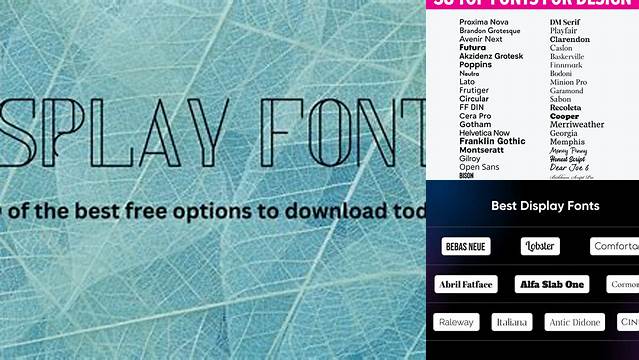
Free Display Fonts: Top Picks & Reddit's Best!
Hey there, font enthusiasts! Are you on the hunt for some awesome free display fonts to spice up your design projects? Well, you've come to the right place! In this article, we're diving deep into the world of free display fonts, exploring the best options recommended by the Reddit community and beyond. Get ready to discover some hidden gems and elevate your typography game! Let’s get started, shall we?
What are Display Fonts?
Before we jump into the specifics, let's clarify what we mean by "display fonts." Display fonts are those stylish, eye-catching typefaces designed primarily for headlines, titles, logos, and other large-format applications. Unlike body text fonts that prioritize readability, display fonts are all about making a statement. They come in a wide range of styles, from bold and geometric to elegant and script-like. When choosing free display fonts, consider the overall tone and message of your project to ensure a cohesive and impactful design. Remember, great fonts can really make or break your design, so choose wisely, guys!
Why Use Free Display Fonts?
The big question: why bother with free display fonts when there are so many premium options available? Well, the answer is simple: budget! Not everyone can afford to shell out big bucks for expensive fonts, especially when starting a new project or running a small business. Luckily, there are tons of high-quality free display fonts out there that can help you achieve a professional look without breaking the bank. Plus, using free display fonts allows you to experiment with different styles and find the perfect fit for your project without feeling guilty about the cost. Just make sure to check the license terms before using any free font commercially to avoid potential legal issues.
Where to Find Free Display Fonts on Reddit
Reddit is a goldmine for finding all sorts of things, including free display fonts. Subreddits like r/typography, r/design_critiques, and r/graphic_design are great places to ask for recommendations and discover hidden gems. Users often share their favorite free display fonts and provide links to download them. You can also search for specific font styles or keywords to narrow down your search. Don't be afraid to ask for feedback on your font choices – the Reddit community is usually very helpful and willing to share their expertise. Remember to always upvote and thank the users who share valuable resources! Reddit’s a great place to find cool stuff, especially free display fonts that others have found useful too.
Top Reddit Recommendations for Free Display Fonts
Alright, let's get to the good stuff: the top free display fonts recommended by the Reddit community. Here are a few popular choices that consistently receive praise for their versatility and aesthetic appeal:
- Oswald: A classic sans-serif font that's perfect for headlines and posters.
- Bebas Neue: A tall and narrow sans-serif that's ideal for modern designs.
- Raleway: An elegant sans-serif with a wide range of weights.
- Montserrat: A geometric sans-serif that's clean and contemporary.
- Roboto: A versatile sans-serif that works well for both headlines and body text.
These are just a few examples, of course. There are countless other free display fonts out there waiting to be discovered. Keep exploring and experimenting to find the perfect fonts for your projects!
- Behance: Adobe’s Behance platform often has designers who release free display fonts.
- Creative Market: While known for premium fonts, they occasionally offer free display fonts as part of their weekly free goods.
How to Choose the Right Free Display Font
Choosing the right free display fonts can feel overwhelming, but it doesn't have to be. Here are a few tips to help you narrow down your options:
- Consider your brand: Your font choices should align with your brand's personality and values.
- Think about your target audience: Choose fonts that will appeal to your target audience.
- Pay attention to readability: Even though display fonts are meant to be eye-catching, they should still be readable.
- Experiment with different styles: Don't be afraid to try out different fonts to see what works best.
- Get feedback from others: Ask for opinions from friends, colleagues, or the Reddit community.
Rounded free display fonts feature soft, rounded edges, giving them a friendly and approachable feel. These fonts are perfect for designs that want to convey a sense of warmth, playfulness, or informality.
Conclusion: Your Font Adventure Awaits!